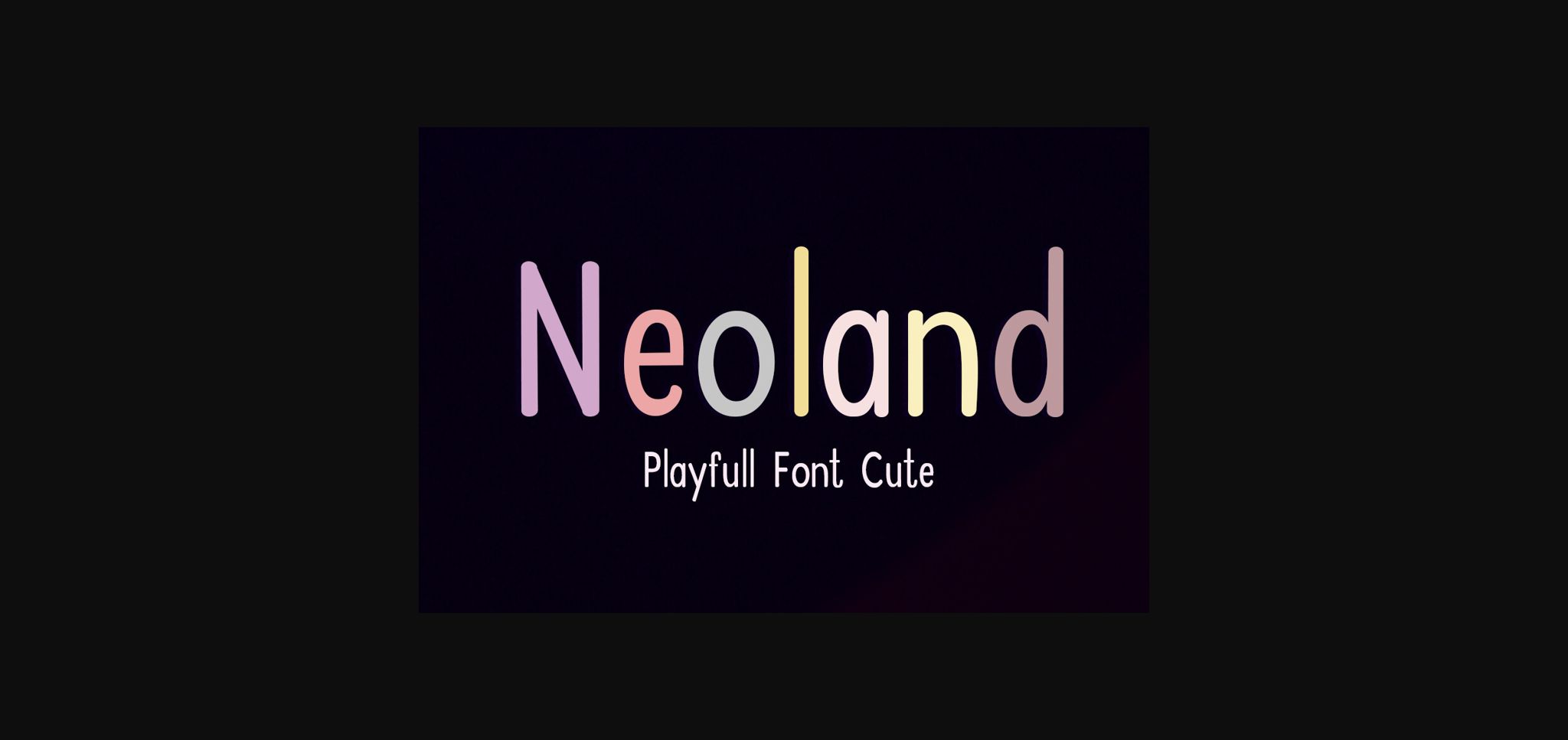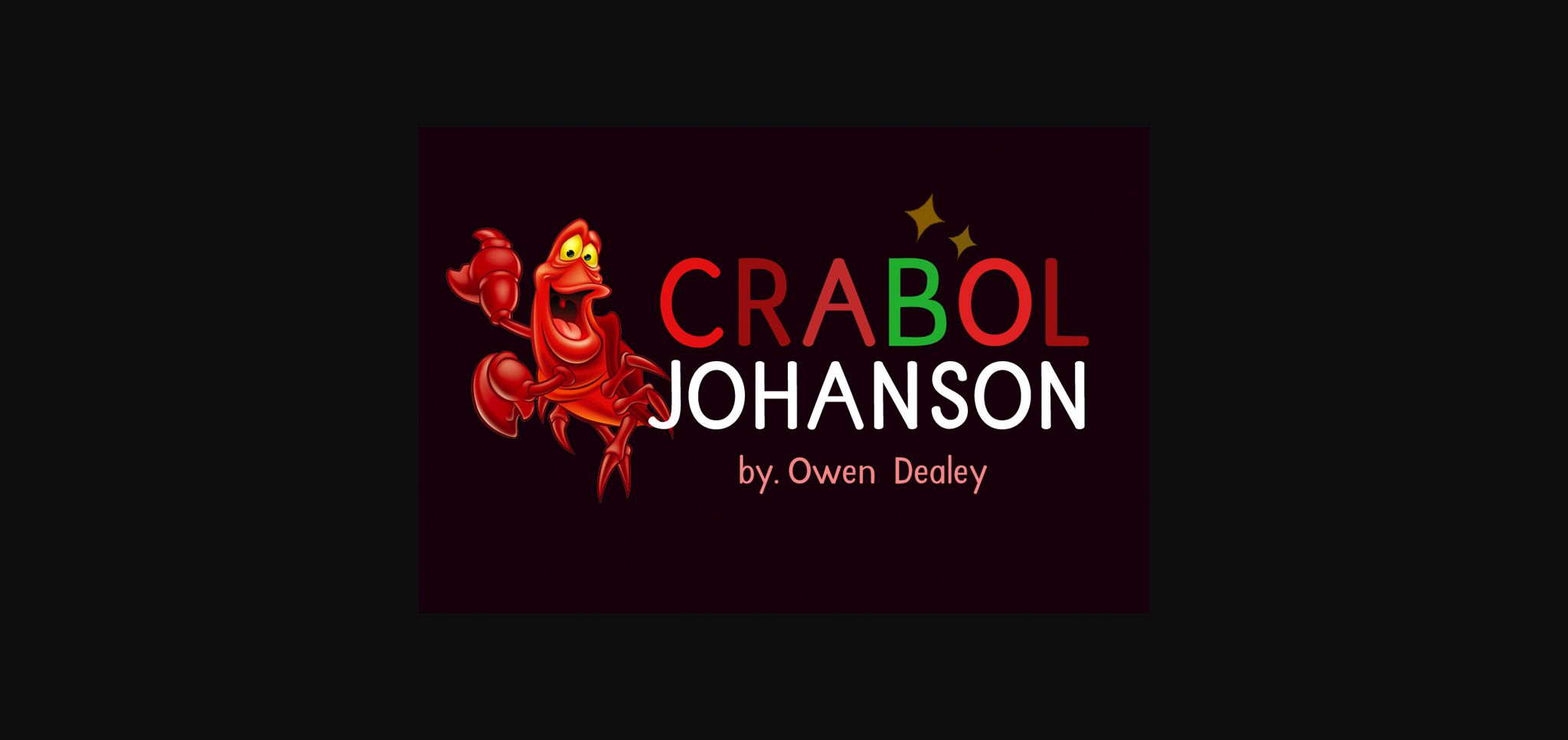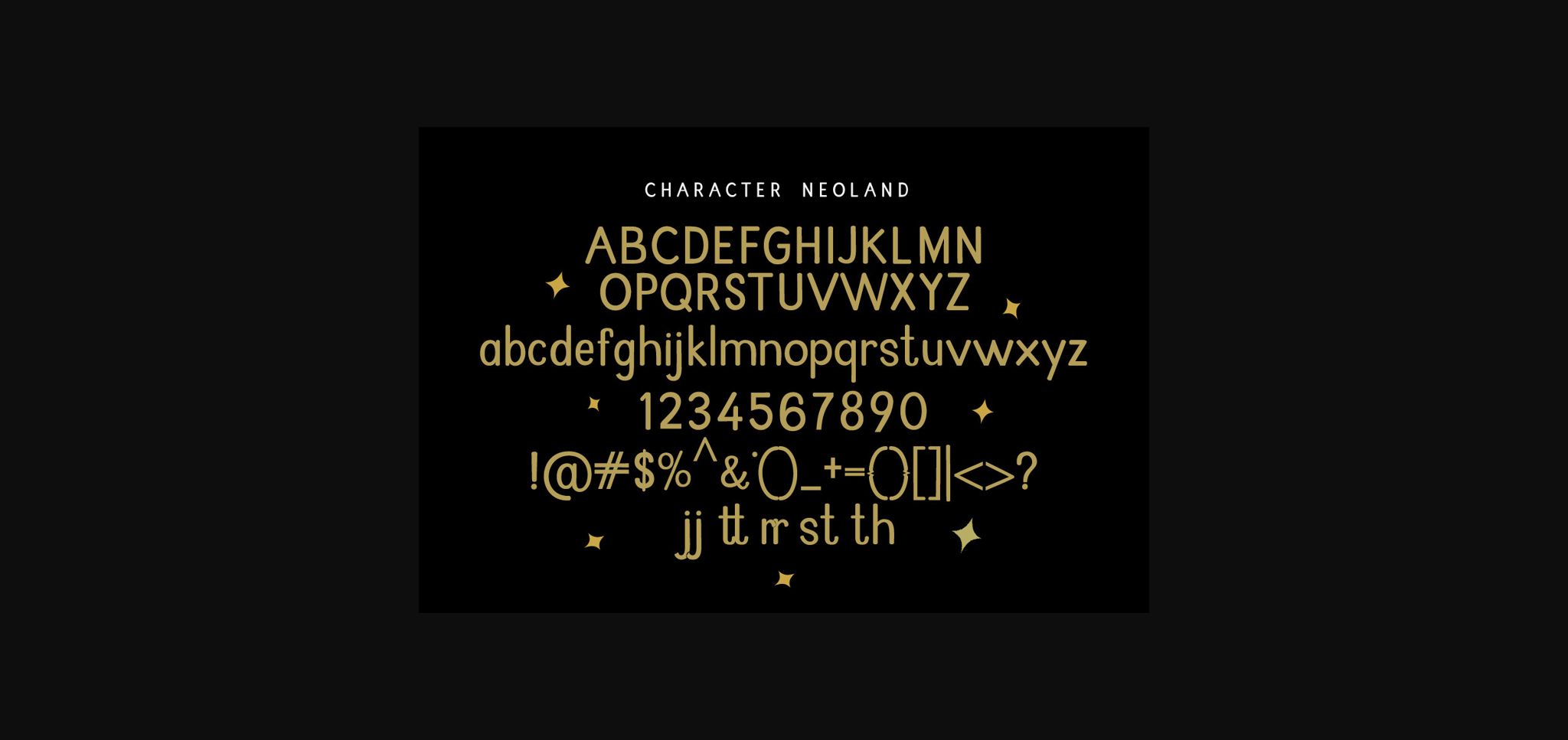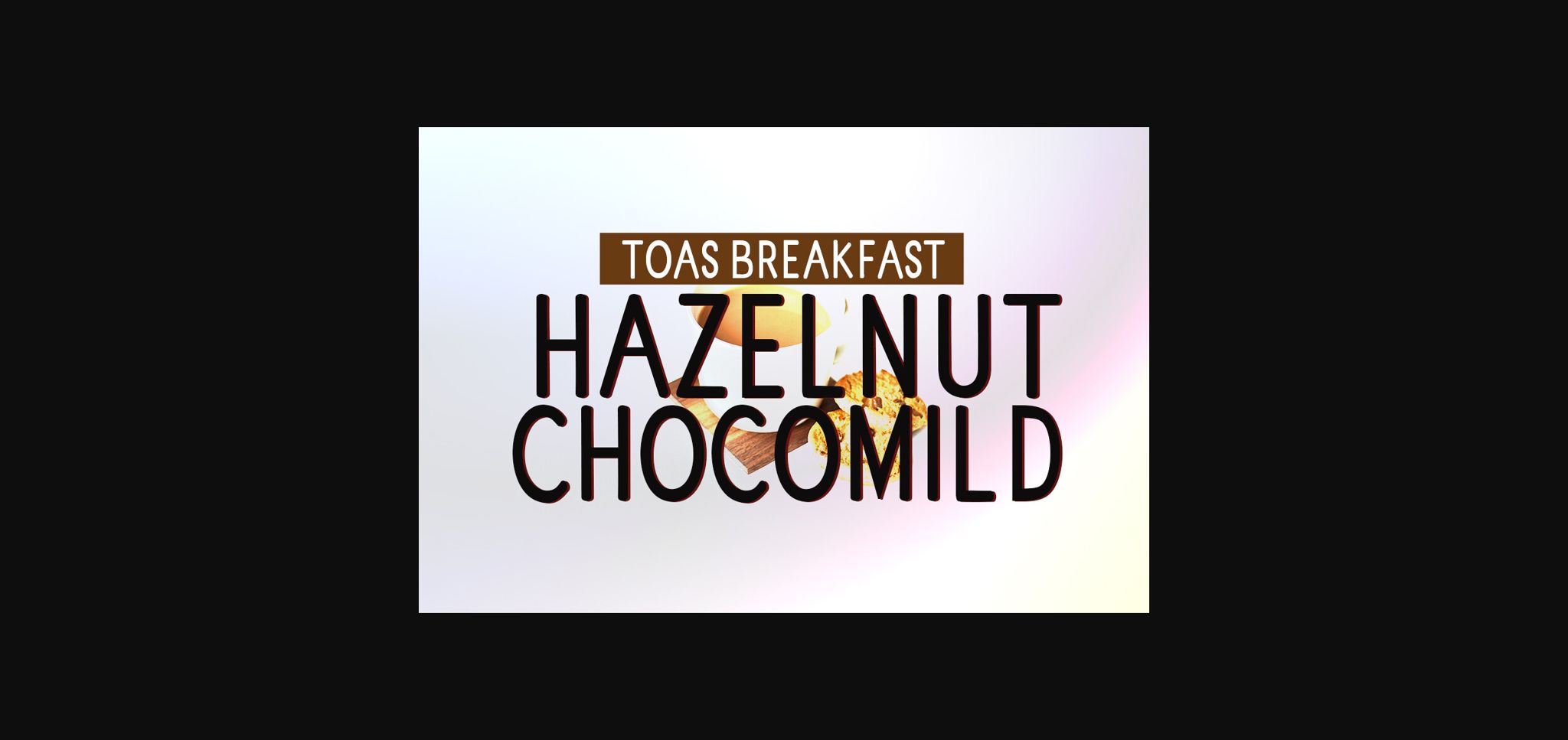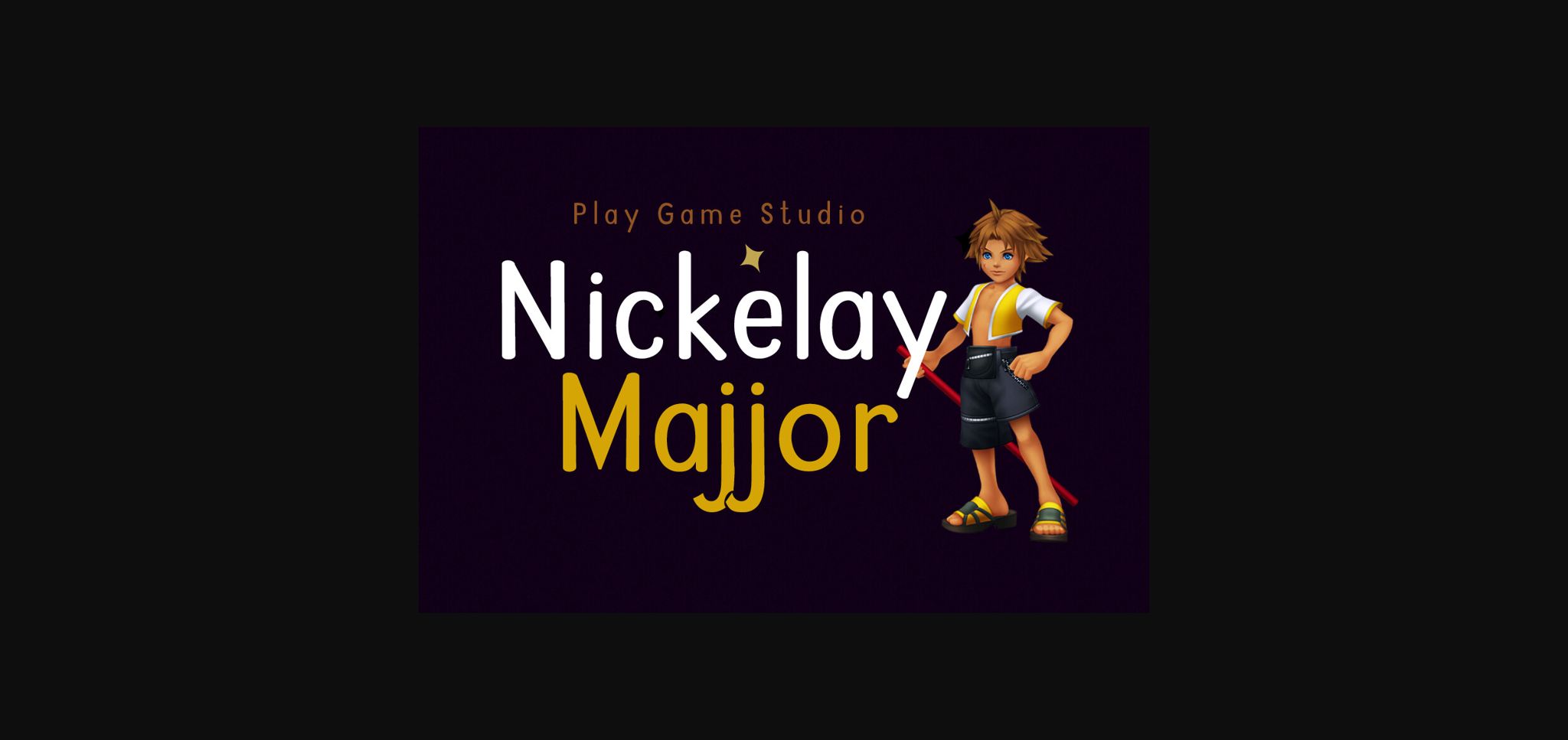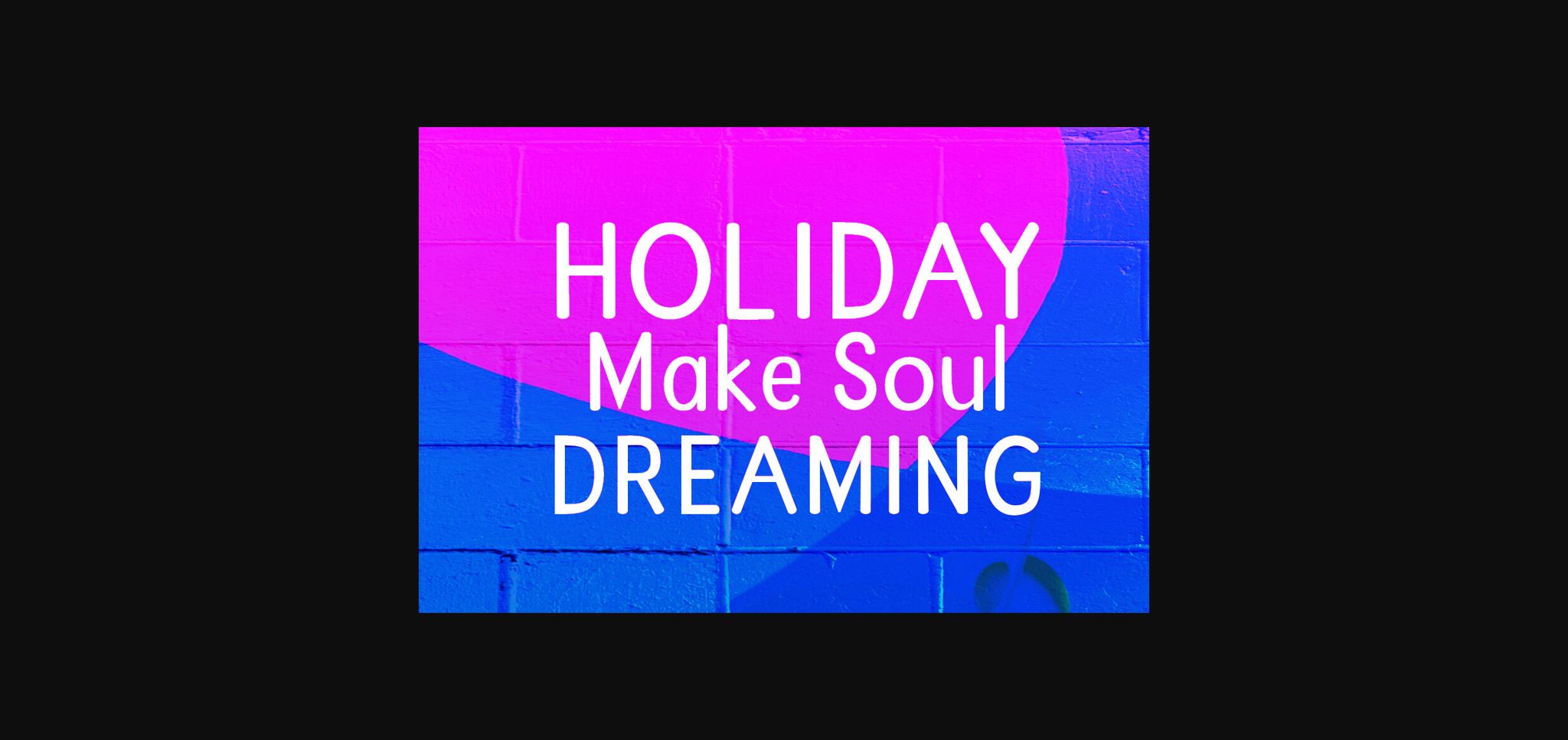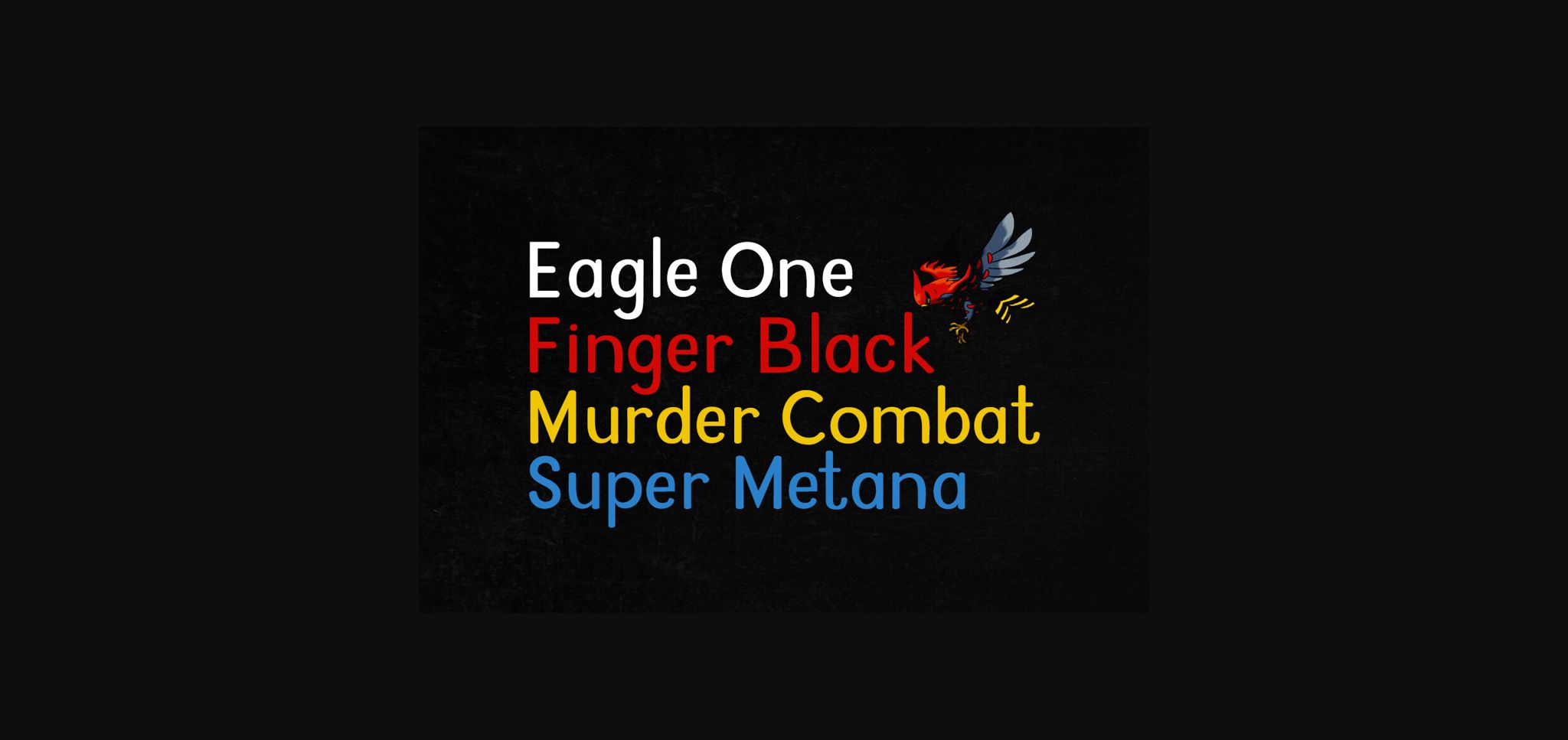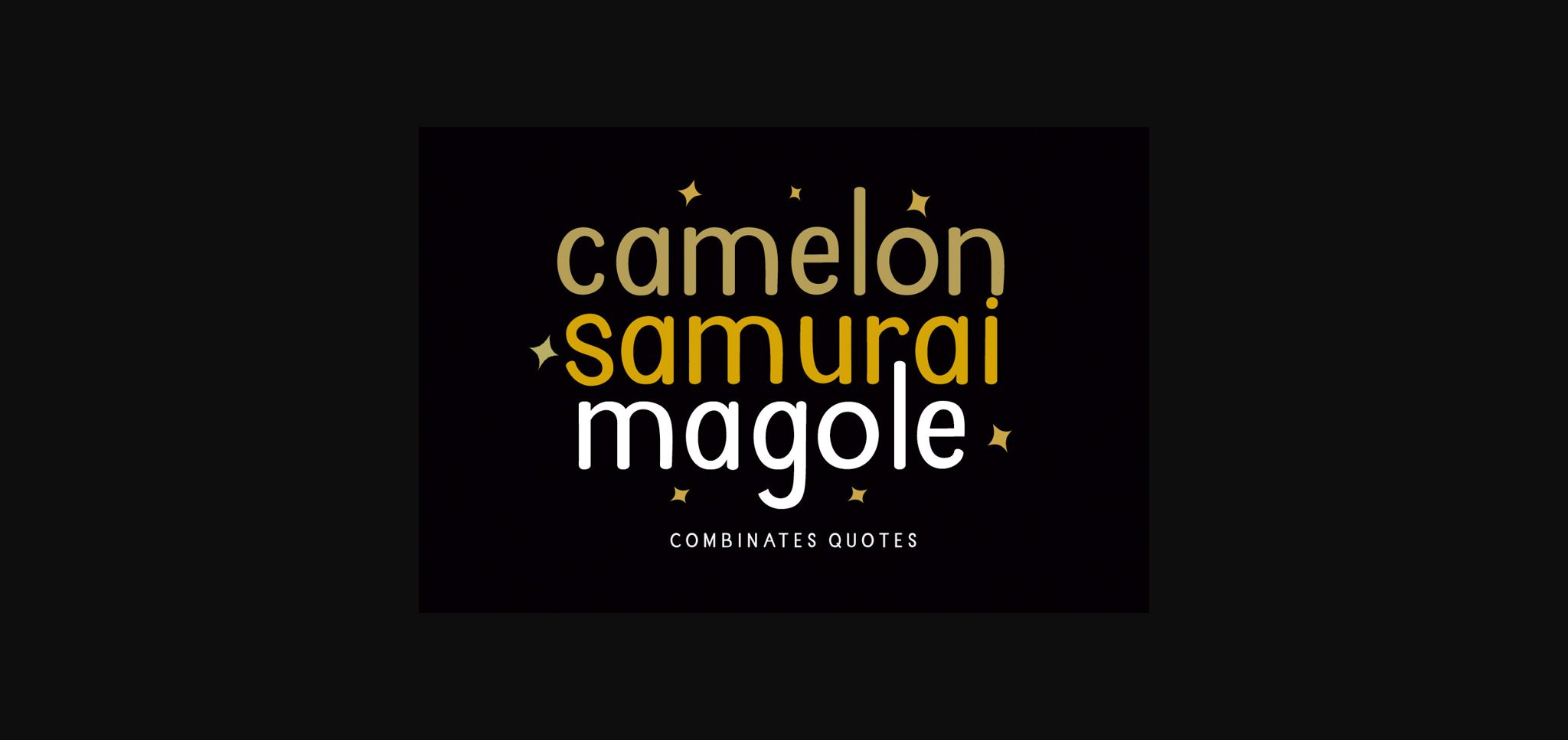
HomeSans Serif FontsNeoland Font Sans Serif Fonts Neoland Font FacebookXPinterestWhatsApp 1 of 11 ... Neoland Font Poster 2... Neoland Font Poster 3... Neoland Font Poster 4... Neoland Font Poster 5... Neoland Font Poster 6... Neoland Font Poster 7... Neoland Font Poster 8... Neoland Font Poster 9... Neoland Font Poster 10... Neoland Font Poster 11... About Neoland Font Neoland is a sweet and friendly handwritten font. Its natural and unique style makes it incredibly fitting to a large pool of designs. The only limit is your imagination! DOWNLOAD NOW People also explored Dear Shine Font Sun Vintage Font Betaphid Habela Font Aletta Martta Font Handlight Font And This Happened Font Crystallized Script Font Freenight Font 351 0 TagsNeolandNeoland Font Previous articleMinimalist FontNext articleSierra Danielle Font LEAVE A REPLY Cancel reply Comment: Please enter your comment! Name:* Please enter your name here Email:* You have entered an incorrect email address! Please enter your email address here Website: Save my name, email, and website in this browser for the next time I comment. Personal Use Free Trio Personal Use Free Read more about this font Velasco Personal Use Free Read more about this font Legacy Personal Use Free Read more about this font Autumn Flowers Font Personal Use Free Read more about this font BLOG Free vs Paid Fonts: Why Investing in Premium Fonts Is Worth It Free vs Paid Fonts: Why Premium Fonts Are Worth It in 2025 The debate of free vs paid fonts continues in the design world. While... Modern Sans-Serif Fonts That Brands Love in 2025 5 Fonts That Will Dominate Design Trends in 2026 Free Fonts Risk: Why Free Fonts Can Be Dangerous for Designers